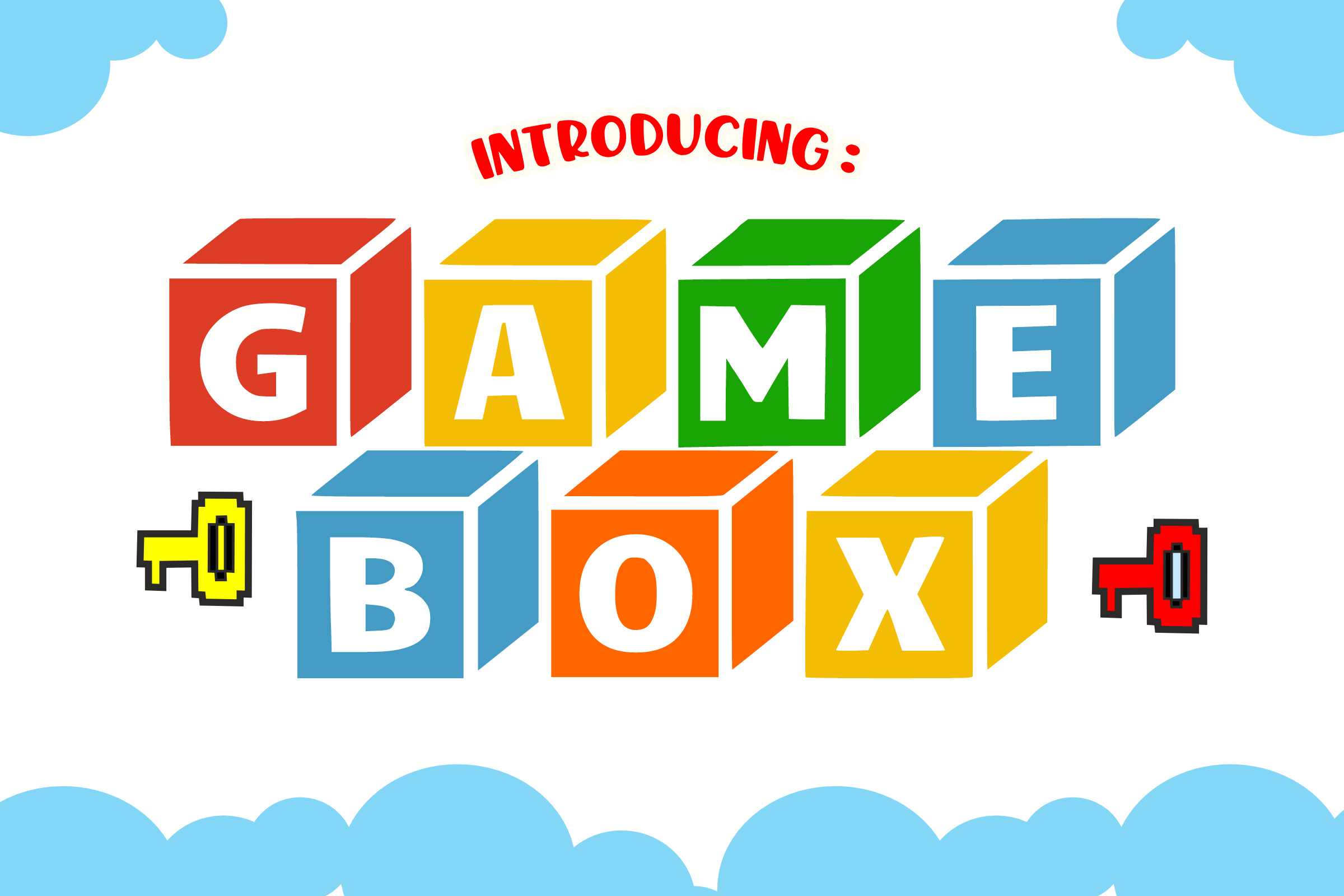
Game Box - Logo Font Types
Welcome to “Game Box,” the whimsical game-inspired font that playfully merges modern aesthetics with adorable block-shaped characters. Its unique cube-like typeface is instantly recognizable, making it the ideal design element for a multitude of creative projects. From adding a pop of character to your animated videos and comic book titles, to differentiating your t-shirt, mug, or tote bag designs, “Game Box” is your gateway to a world of artistic exploration. With your support and enthusiasm, we can continue crafting distinctive fonts to fuel your creativity. We’re grateful you’re on this journey with us – the fun has only just begun with “Game Box”!